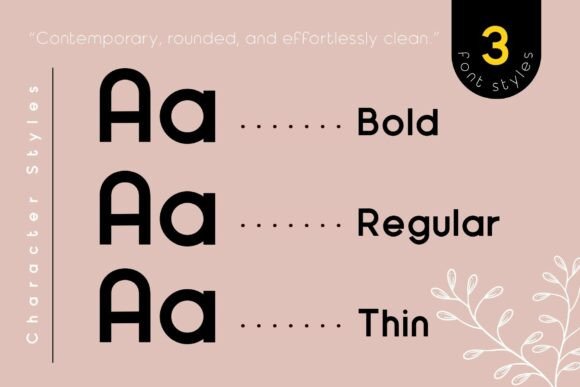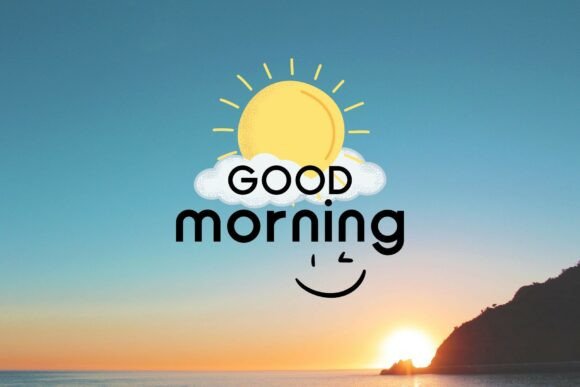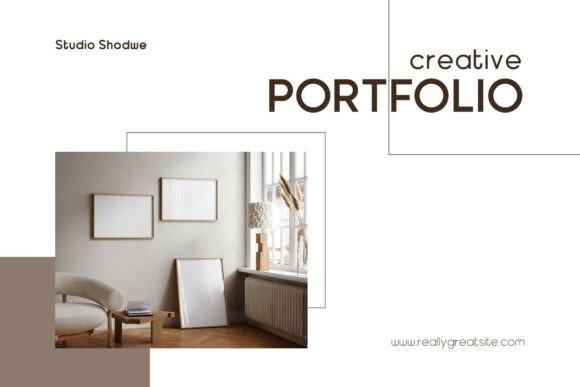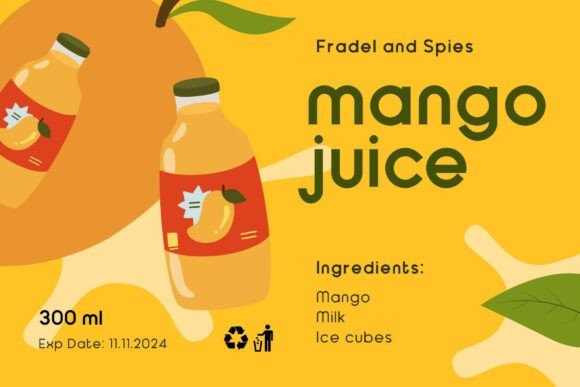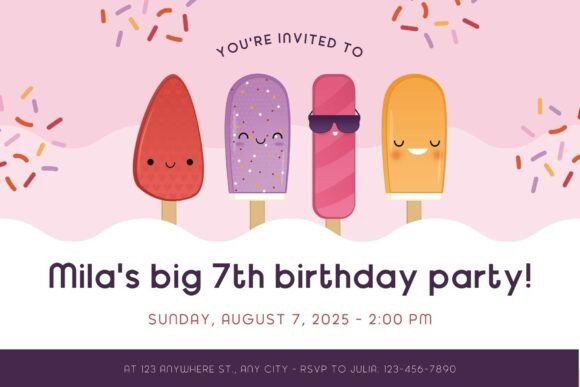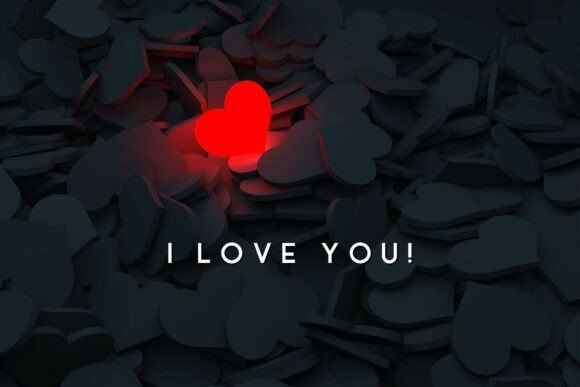
Introduction to Fox Linea Font
Fox Linea is a contemporary sans serif typeface that blends minimalism with soft, rounded curves.
Designed to be effortlessly clean and versatile, this font is perfect for branding, digital products, social media, packaging, and modern editorial design With 3 font weights – Bold, Regular, and Thin – Fox Linea adapts to a variety of creative needs, offering balance and clarity at every size.
Key Features of Fox Linea Font
Why Choose Fox Linea Font?